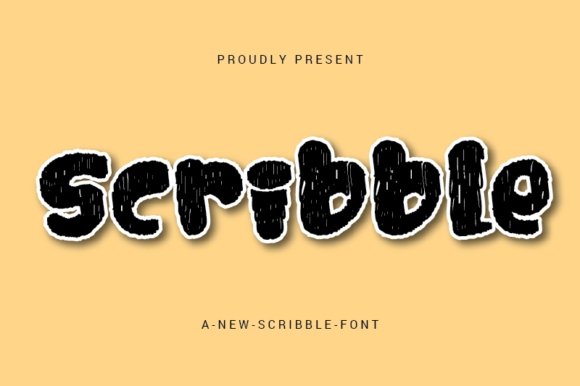
Scribble: A Playful Display Font for Joyful Designs
Sometimes, a single design element can completely transform a project, injecting it with personality and charm. That's exactly what the Scribble font brings to the table. This cute and quirky display typeface is designed to add an incredibly joyful touch to your creative work, making it an excellent choice for designers looking to infuse their projects with a sense of fun and approachability.
As a display font, Scribble shines brightest in situations where you need to make a bold, memorable statement. Its unique, handcrafted feel makes it far more than just another typeface; it's a design asset that can help establish a distinct visual identity. Think of it as the perfect tool for projects that aim to feel friendly, creative, and slightly whimsical.
Creative Projects That Shine with Scribble
Wondering where this creative font fits best? Its versatility might surprise you. Here are some practical applications where Scribble can elevate your designs:
- Logo Design & Brand Identity: For brands that want to appear approachable, playful, or innovative, Scribble can form the foundation of a memorable logo. It works wonderfully for businesses in the creative, children's, or lifestyle sectors.
- Packaging Design: Product packaging for artisanal goods, snacks, or cosmetics can benefit from its friendly vibe, helping items stand out on the shelf with a personal, crafted touch.
- Social Media Graphics & Poster Design: Its high-impact style grabs attention in crowded digital feeds and on physical posters, making announcements, quotes, or event promotions feel more engaging.
- Editorial Layouts & Web Design: Used sparingly for headlines or pull quotes, Scribble can break the monotony of standard sans serif font or serif font text, adding a focal point of visual interest in magazines, blogs, or website banners.
- Invitations & Merchandise: From birthday party invites to custom t-shirt designs, this font helps create items that feel special and customized.
Tips for Using This Display Typeface Effectively
While Scribble is a premium font with great appeal, using any display typeface effectively requires a bit of strategy. Here’s how to get the most out of it:
First, always consider readability. Display fonts are designed for impact, not for body text. Use Scribble for short bursts of text like titles, headings, or logos, and pair it with a clean, neutral typeface for longer paragraphs to ensure your message is clear. Exploring font pairing is key; it balances beautifully with many modern typography options.
Second, match the mood. The playful nature of Scribble won't suit every project. It's ideal for conveying creativity, joy, and warmth, but might not be the right fit for formal or highly technical brands. Always align your typeface choice with the overall tone of your project.
Choosing the right typography is a fundamental step in creating polished, professional, and cohesive designs. A well-selected display font like Scribble does more than just spell out words; it communicates emotion, sets a scene, and helps build brand recognition. By thoughtfully integrating this joyful typeface into your work, you can add that standout quality that turns a good design into a great one.